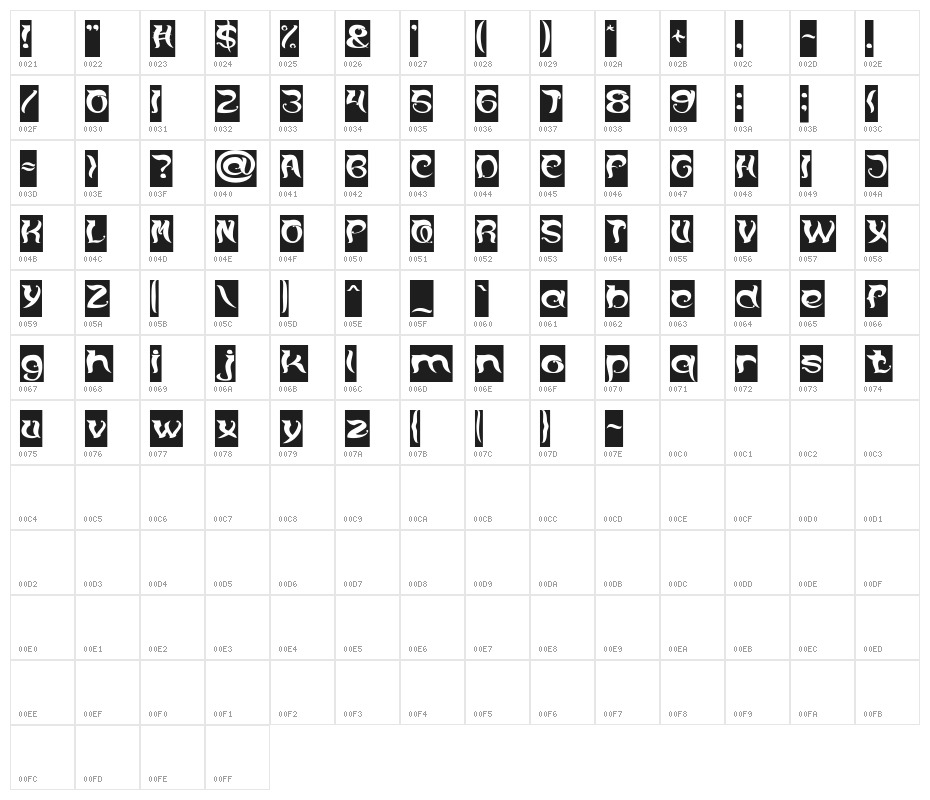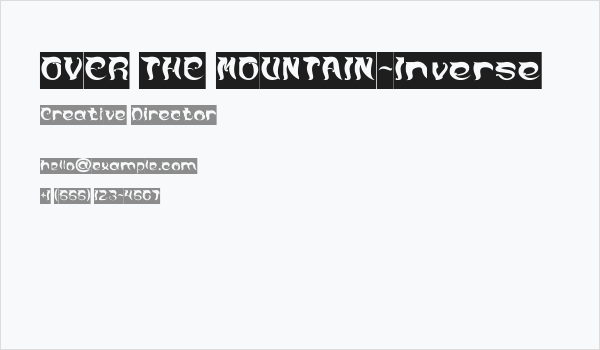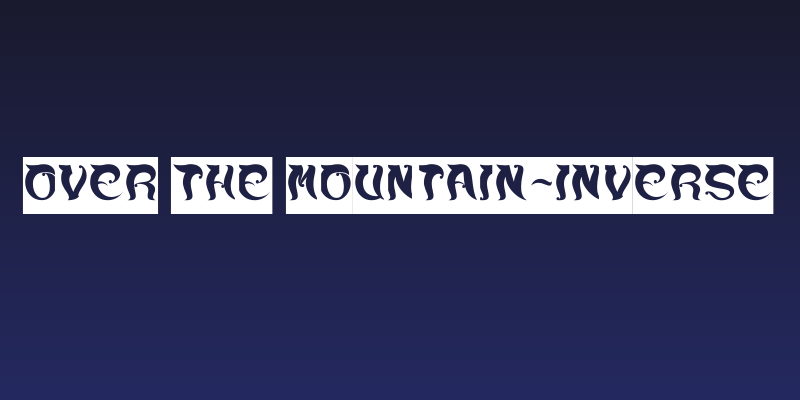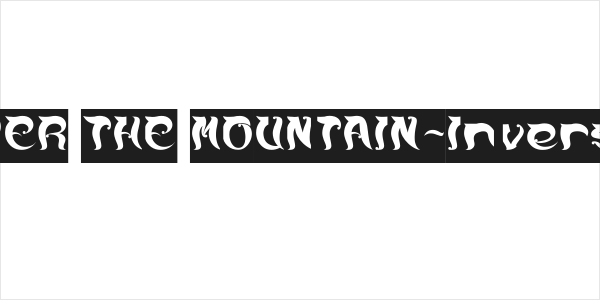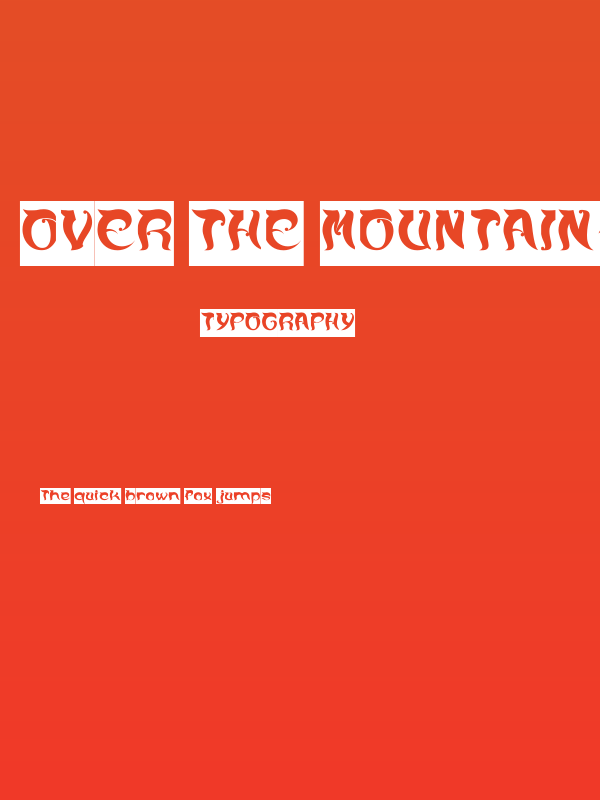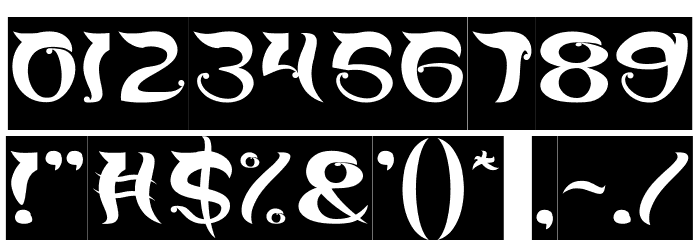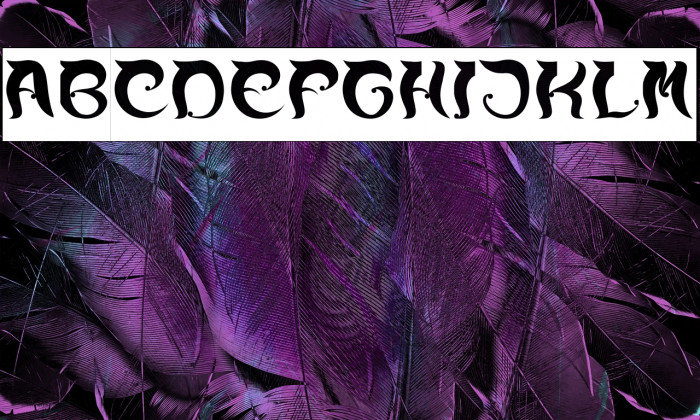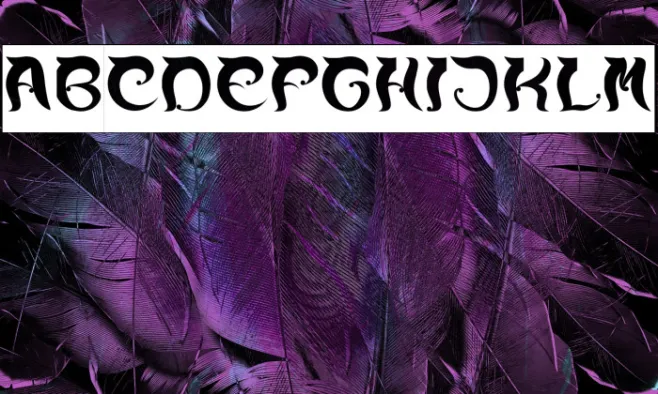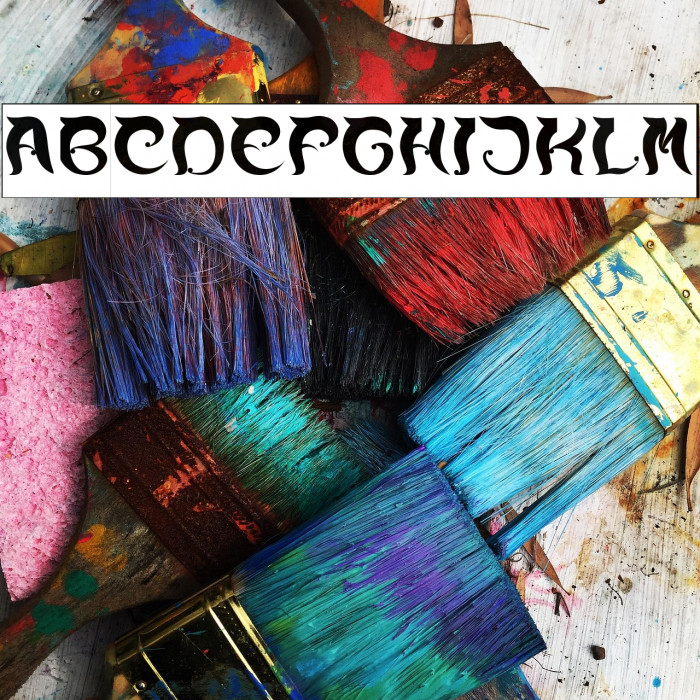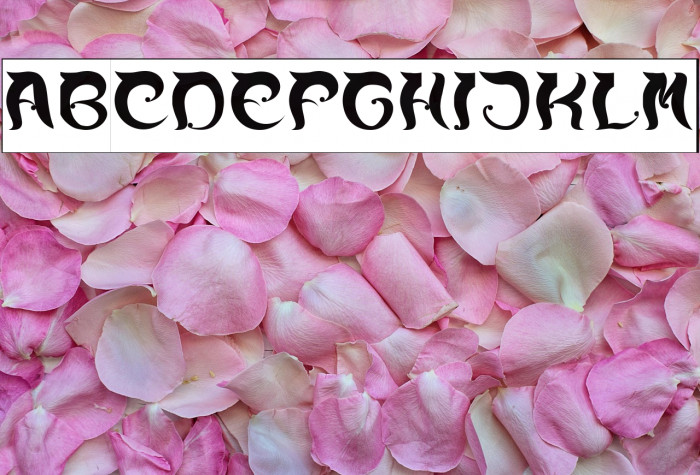
OVER THE MOUNTAIN-Inverse Font
OVER THE MOUNTAIN-Inverse Description
This font features a bold and dramatic style with high contrast between thick and thin strokes. The characters have a unique, flowing design with sharp, pointed serifs and intricate curves, giving it an artistic and somewhat gothic appearance. The uppercase letters are particularly striking, with exaggerated flourishes and a sense of movement. The lowercase letters maintain a consistent style, offering a cohesive look across the alphabet. Numbers and special characters are designed with the same attention to detail, ensuring a uniform aesthetic throughout. This font is ideal for creating eye-catching headlines or artistic designs that require a touch of elegance and flair.
| Overall Style | Gothic, Decorative |
| Use Case | Headlines, Logos, Artistic Designs |
| Proposed Projects | Ideal for artistic posters, gothic-themed designs, book covers, and branding that requires a dramatic touch. |